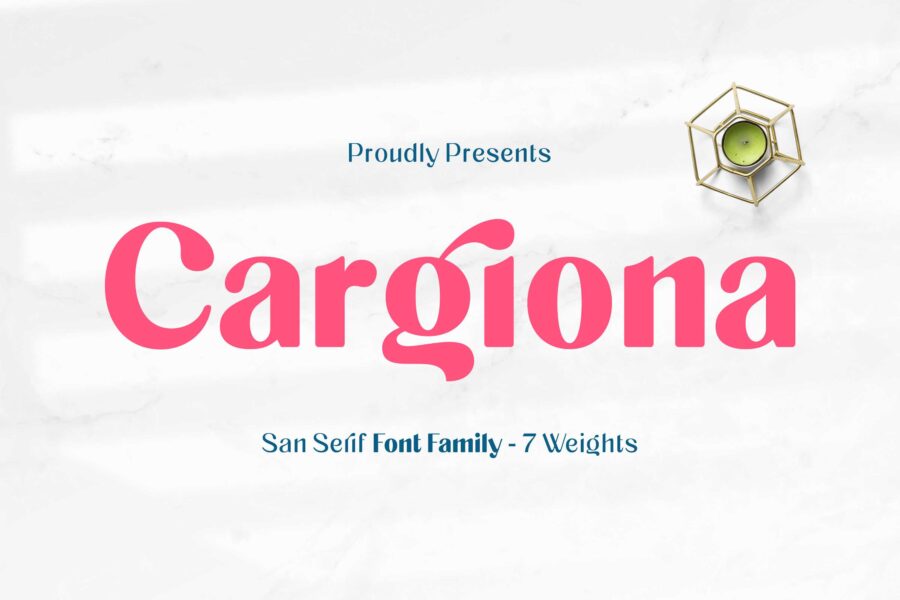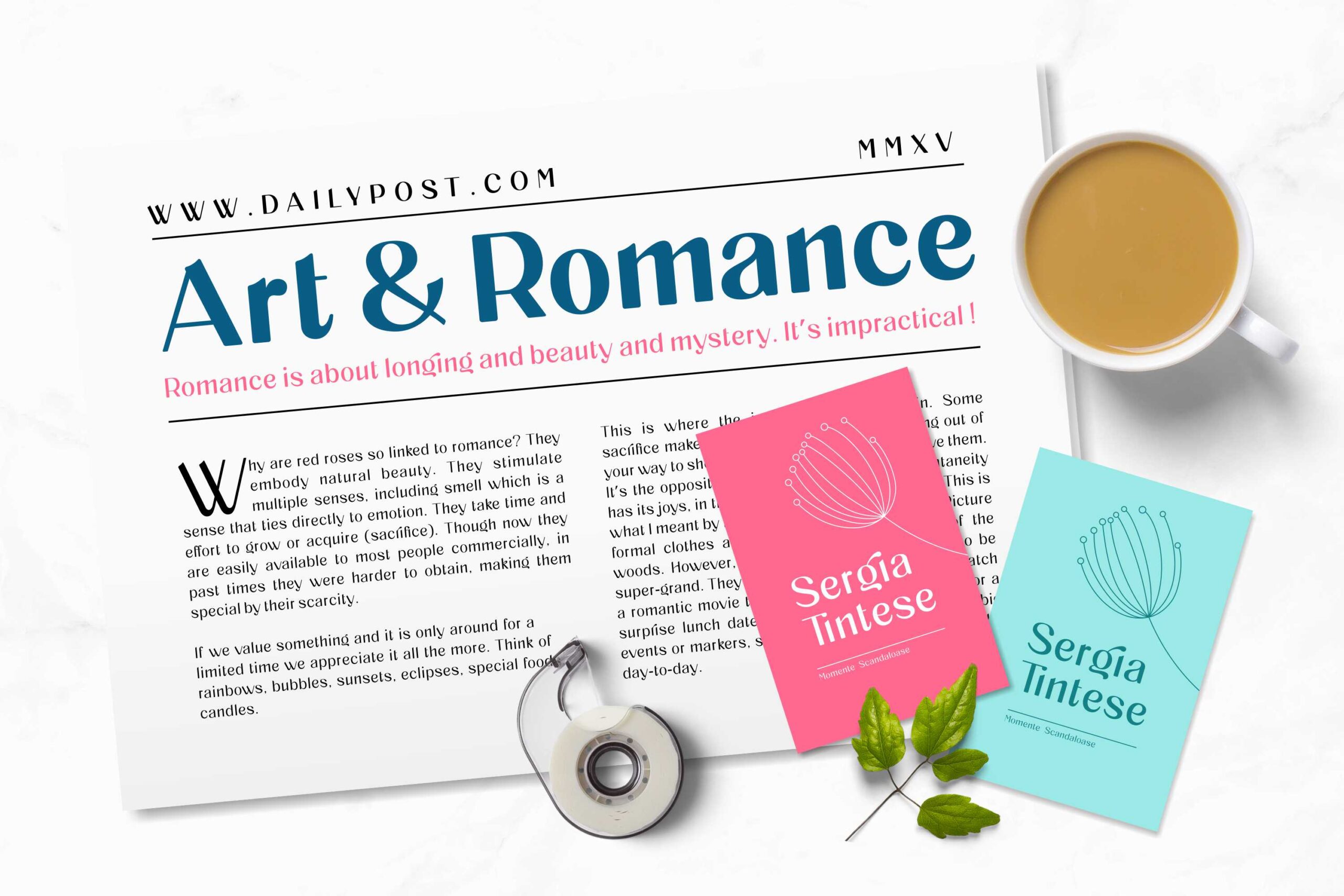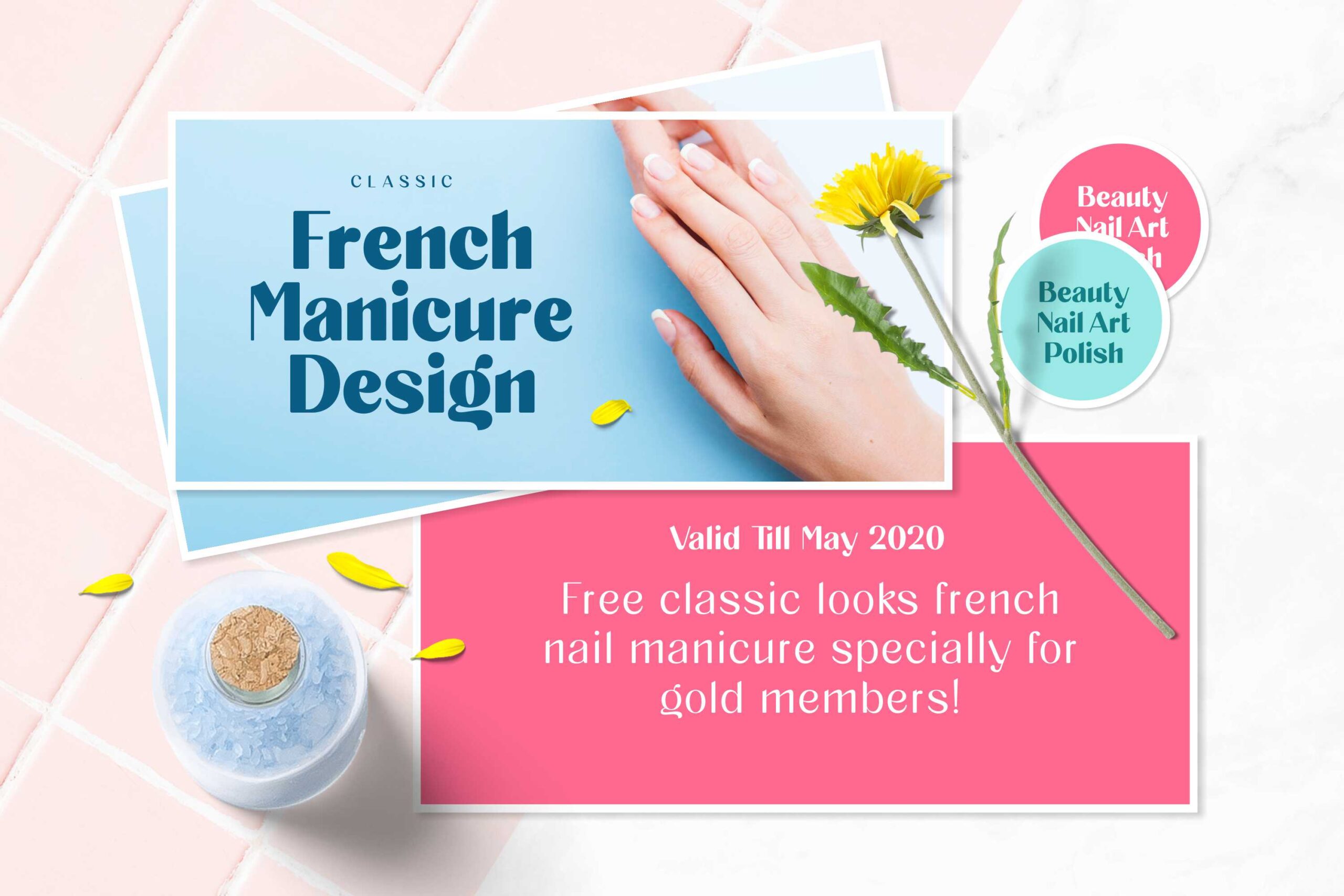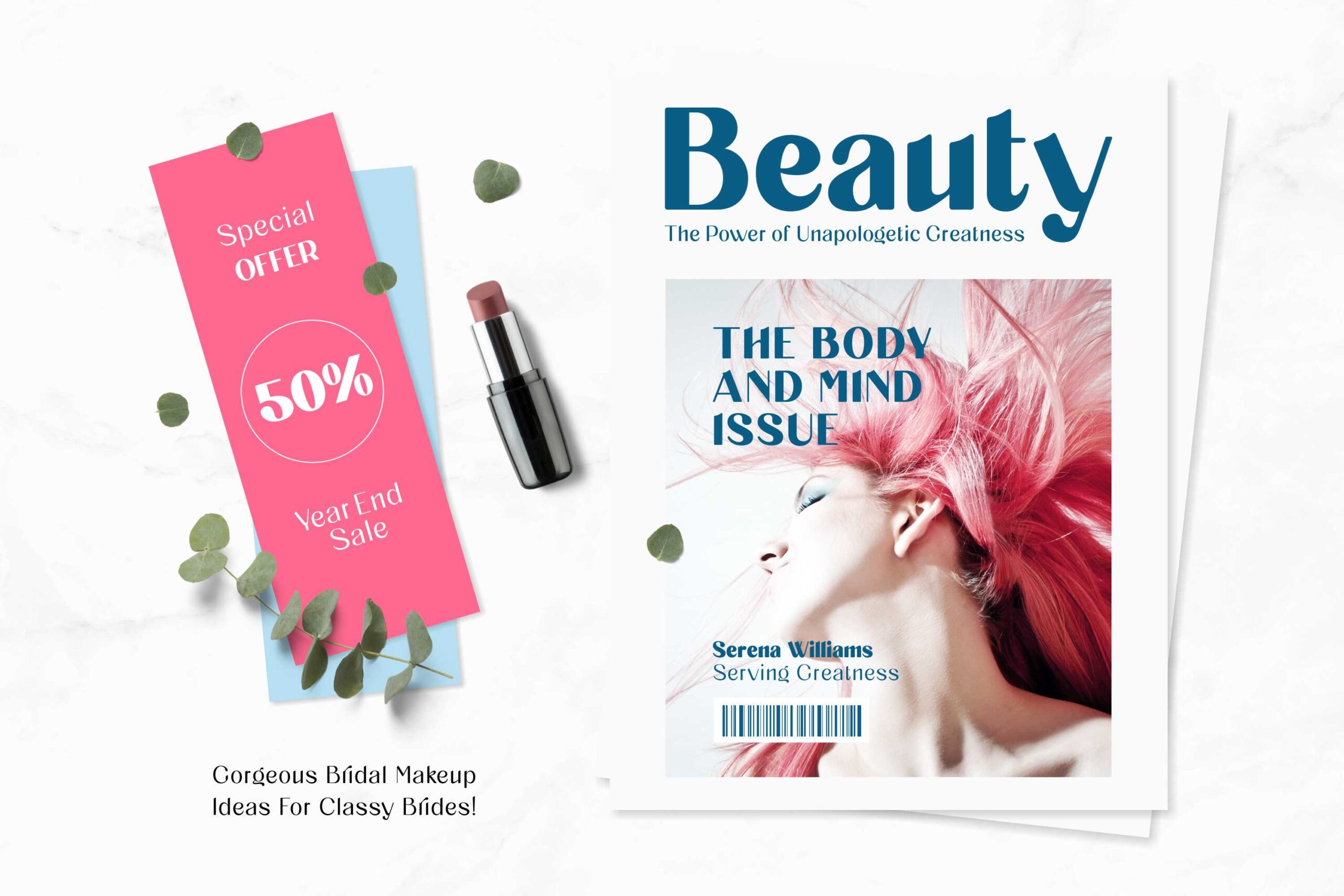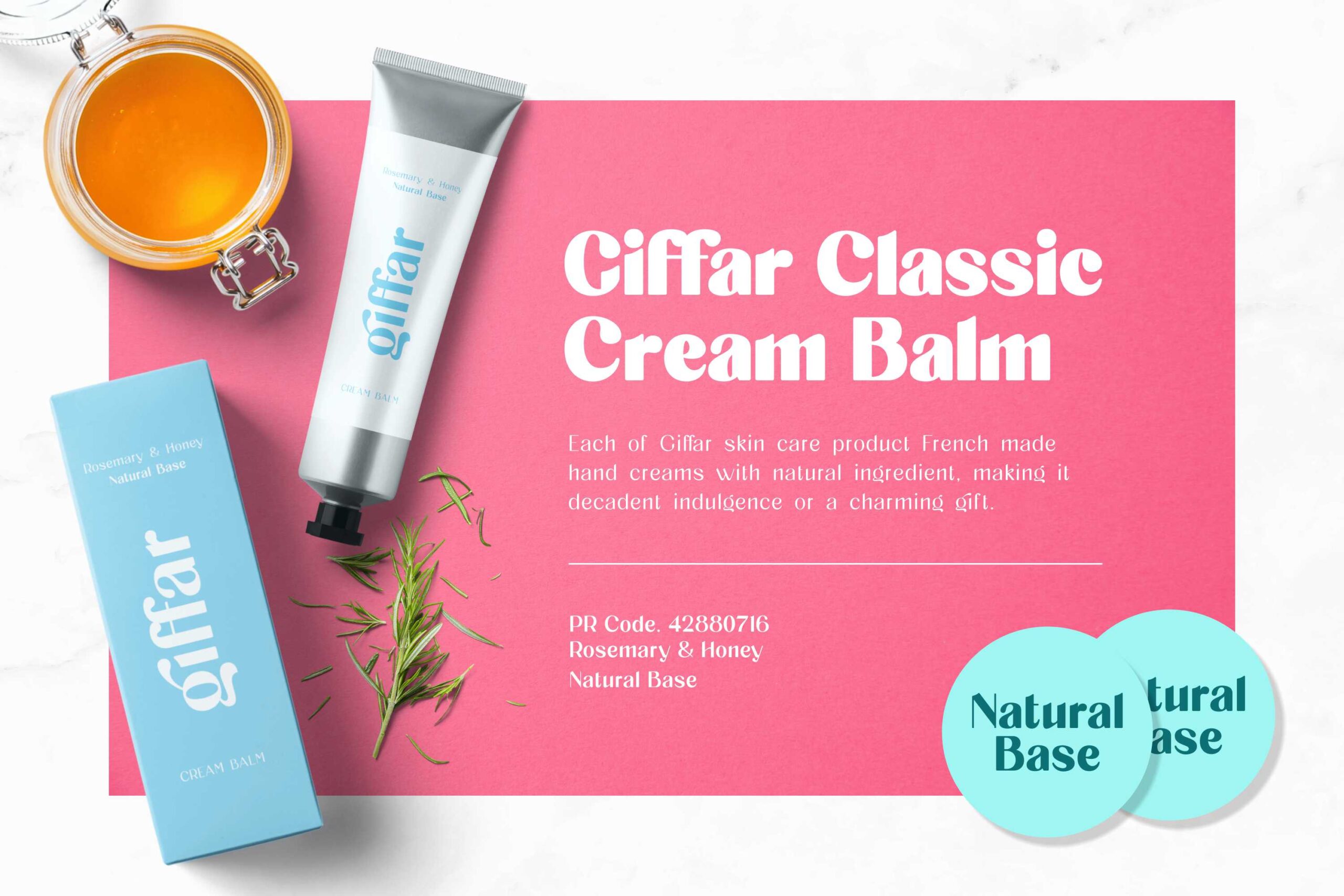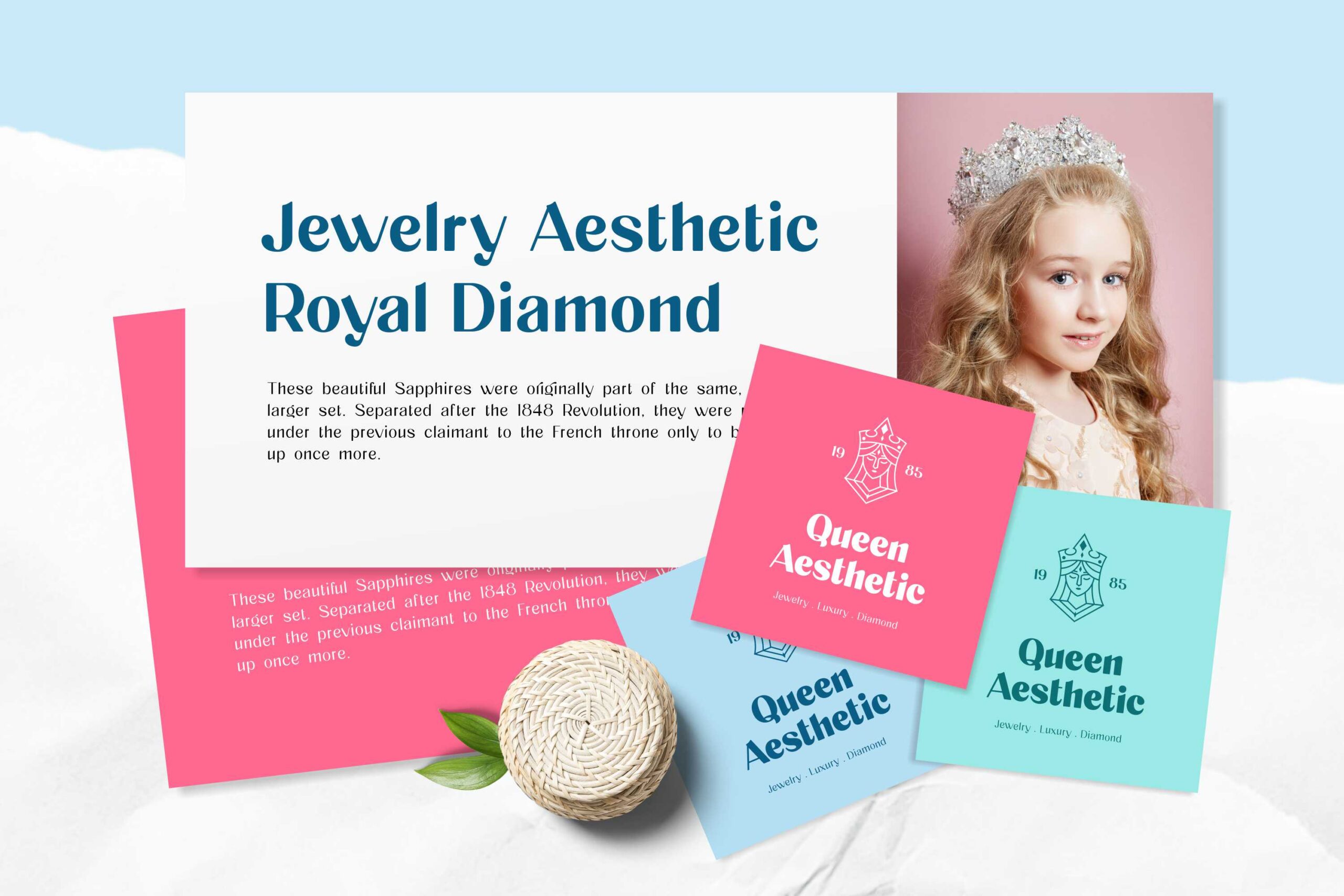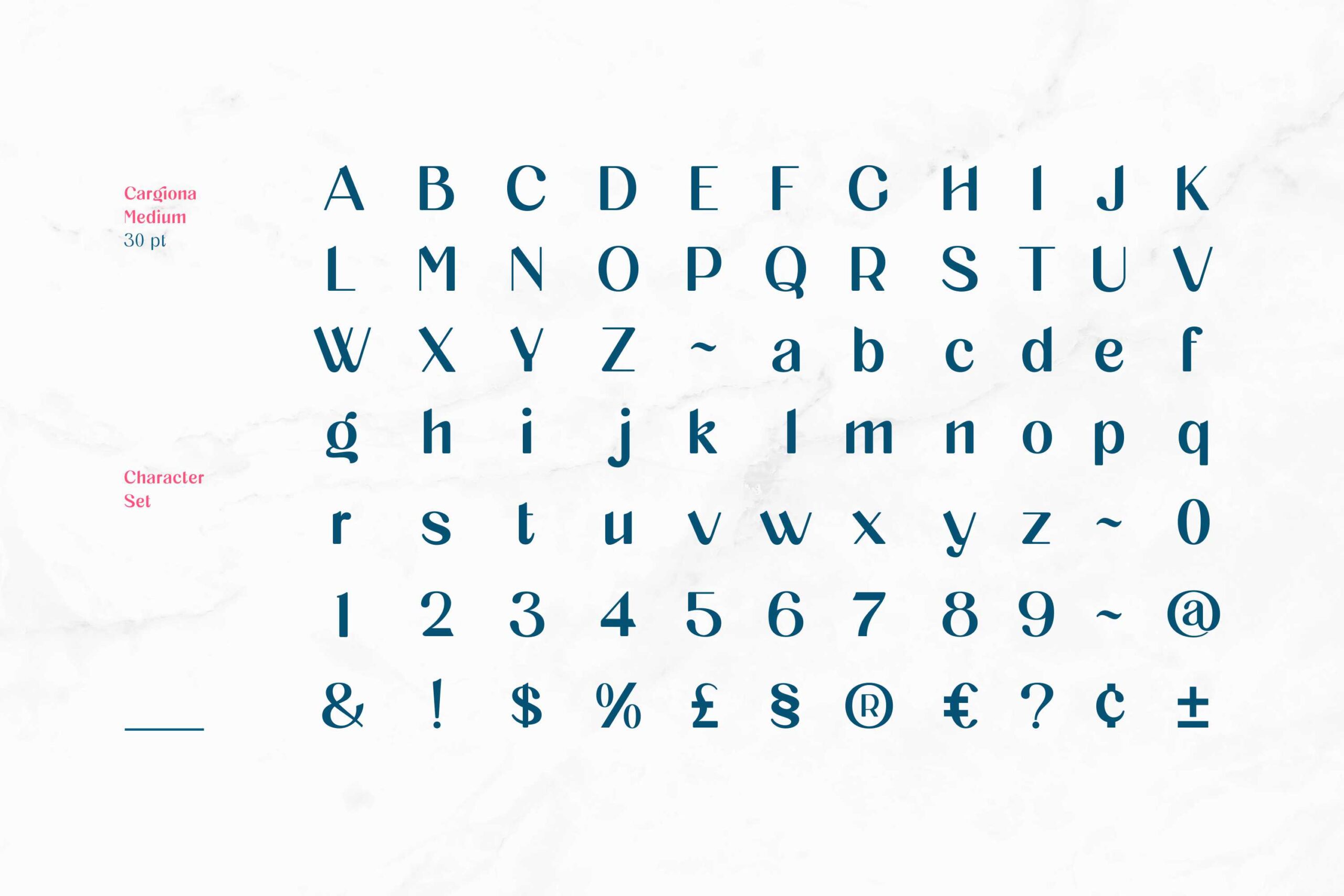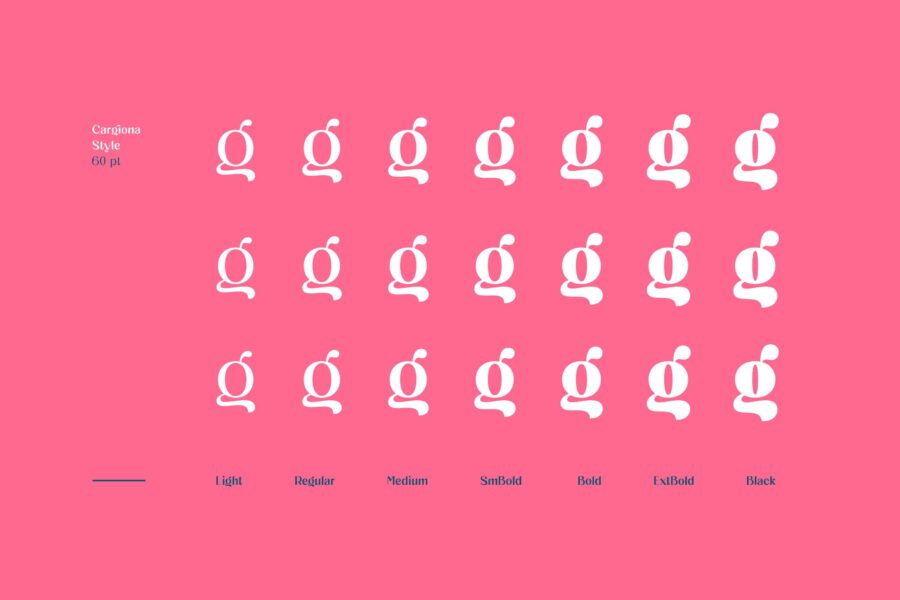
Cargiona is a modern sans serif font family that combines bold shapes with playful ligatures, creating a fresh and stylish look. With its seven versatile weights ranging from Light to Black, this font provides flexibility for any design need—whether it’s branding, packaging, editorial layouts, or digital graphics. Its clean structure is enhanced by unique alternates and ligatures that bring a touch of personality to your typography.
Perfectly suited for fashion, beauty, lifestyle, and creative industries, Cargiona stands out with its contemporary elegance. It works beautifully for logos, magazine titles, social media visuals, and product packaging, offering both professionalism and charm. Whether used with ligatures ON for a decorative flair or OFF for a more minimal aesthetic, Cargiona ensures your design remains modern, bold, and memorable.
Cargiona